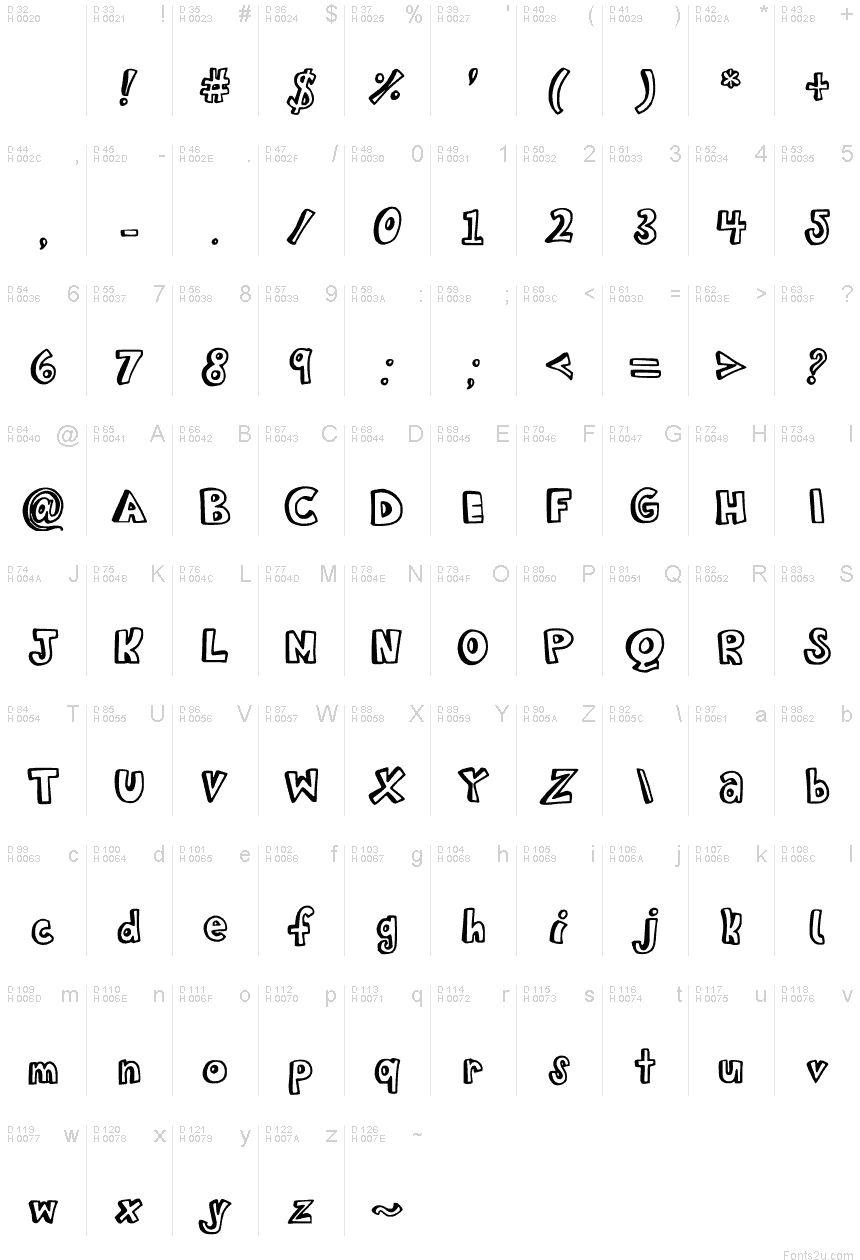
BistroBlock by MyScriptFont.com is a free outlined cartoon display font with broad, buoyant letters. Thick outer contours surround uneven inner shapes, and the changing stroke widths give the alphabet a lively hand-drawn wobble. Rounded corners keep the forms cheerful rather than severe.
Restaurant signage is its strongest use, especially for burger shops, snack bars, and casual food packaging that favor an upbeat, informal voice. The hollow centers can echo simple menu illustrations or sticker-style graphics, turning names and short phrases into part of the artwork.
BistroBlock